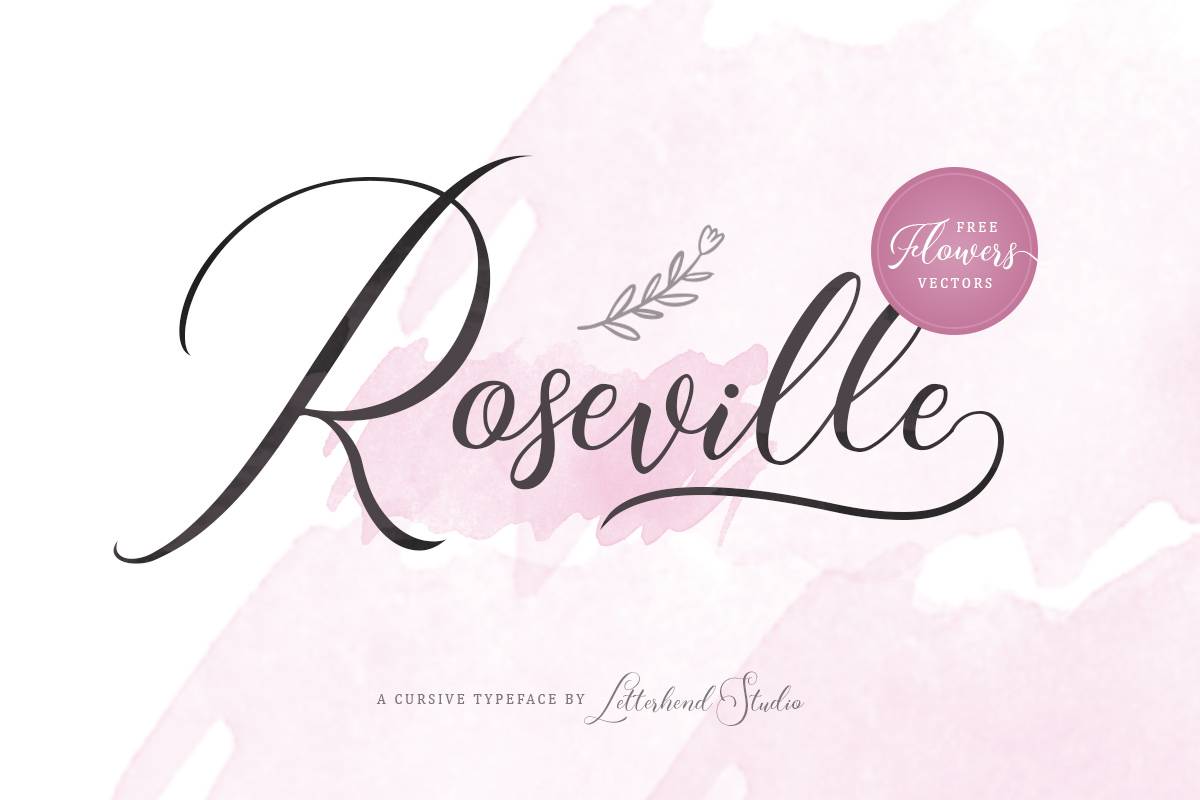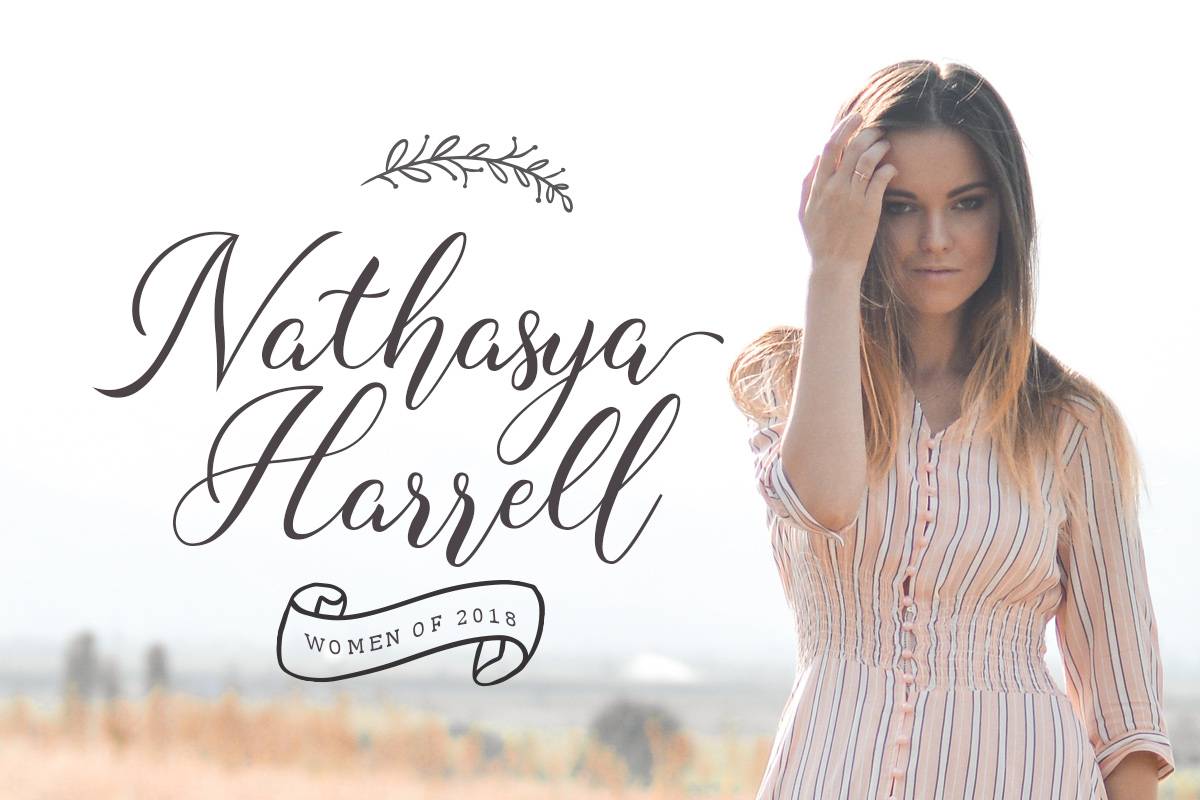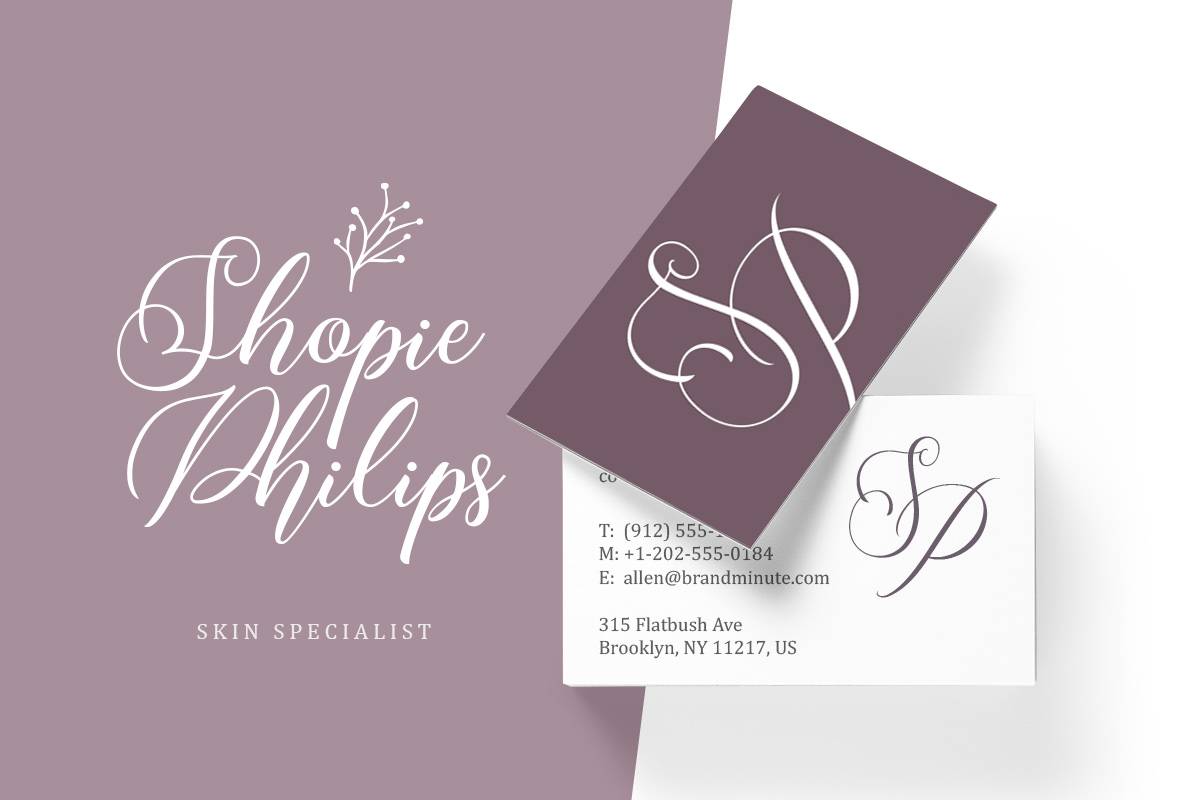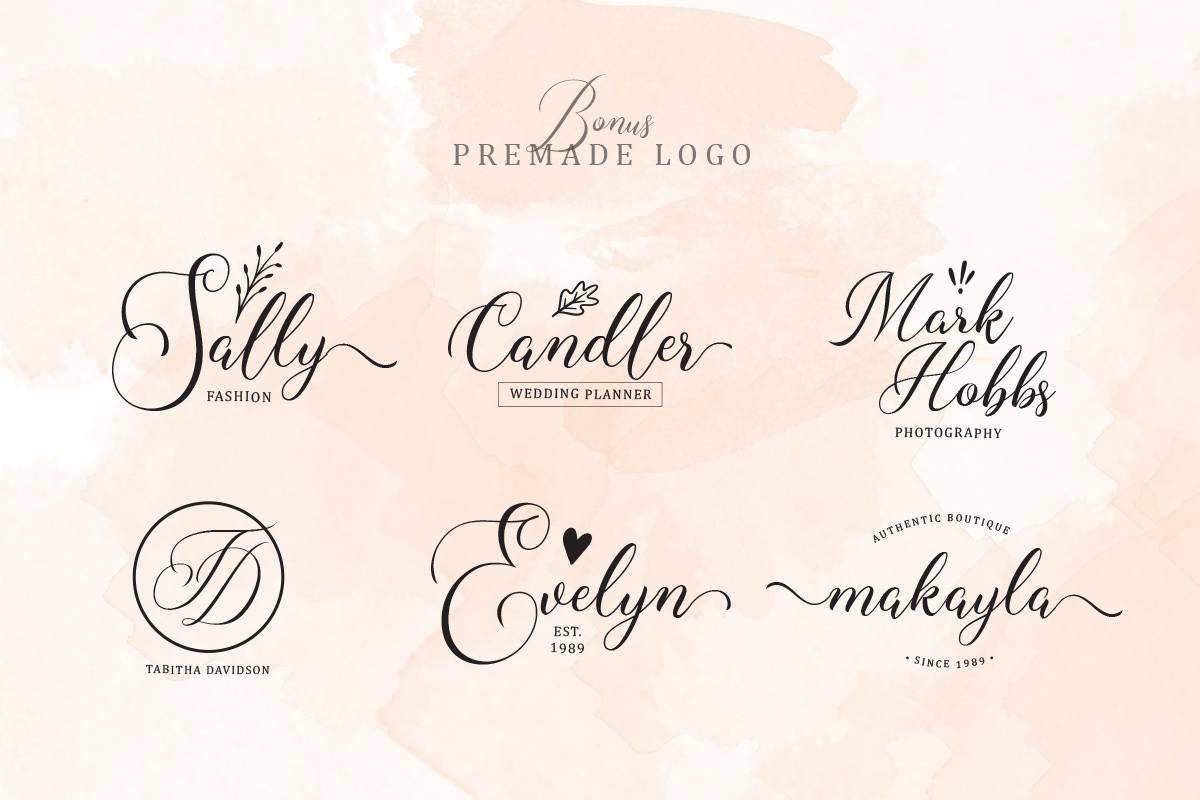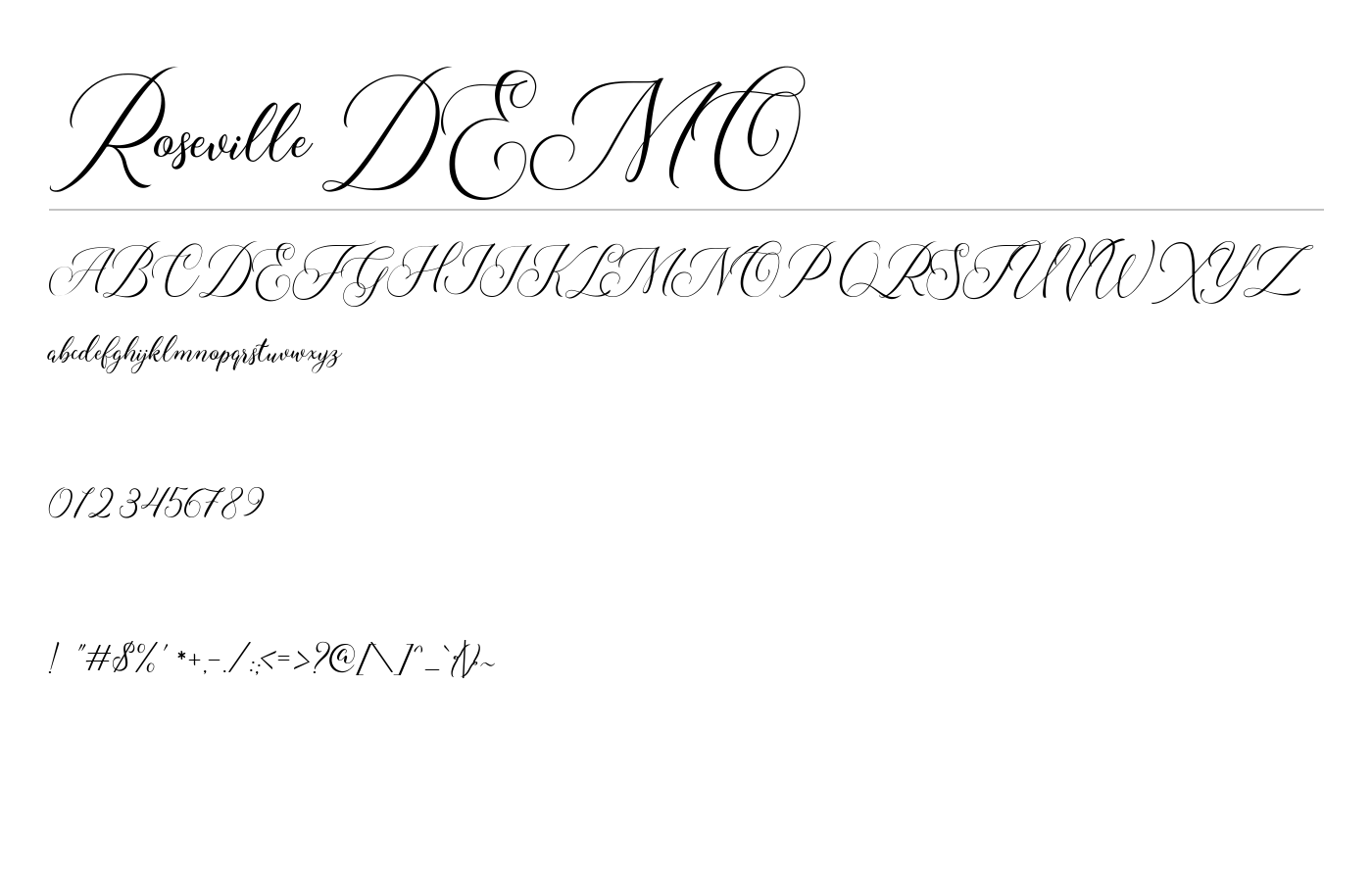
Roseville is an elegant script font featuring delicate, flowing strokes with high contrast and graceful curves, giving it a refined and sophisticated feel. Its thin, calligraphic letterforms, complete with ornate swashes and flourishes, make it ideal for luxury branding, wedding invitations, and upscale editorial use where a touch of classic beauty is desired. The font’s slender style and decorative character add a romantic and timeless charm to any design.
Roseville Font
About Roseville Font